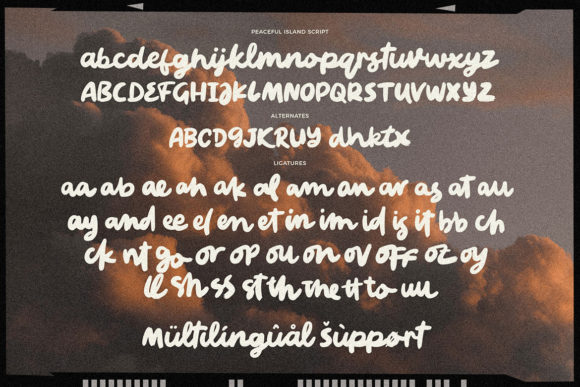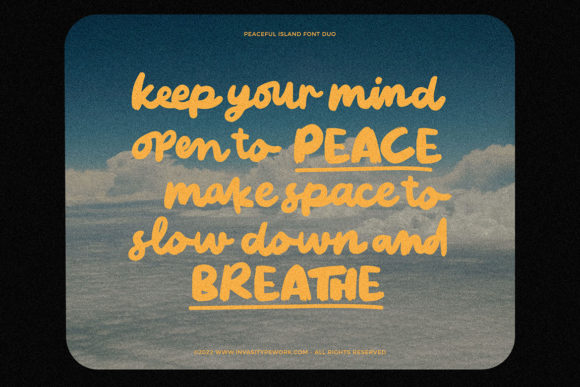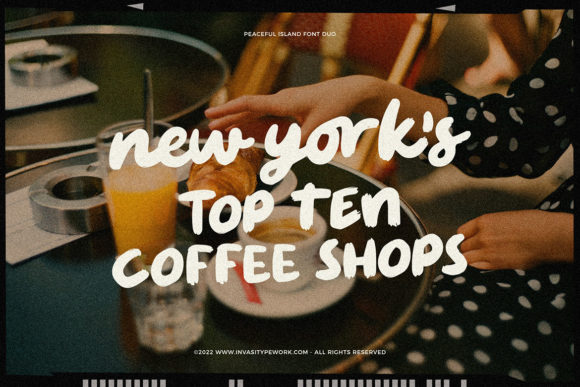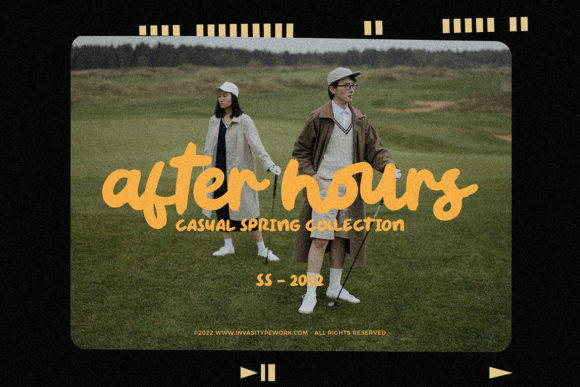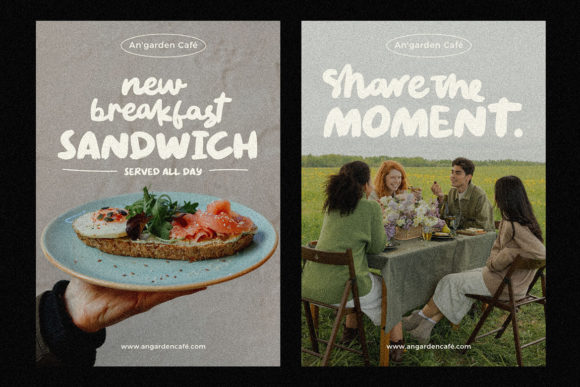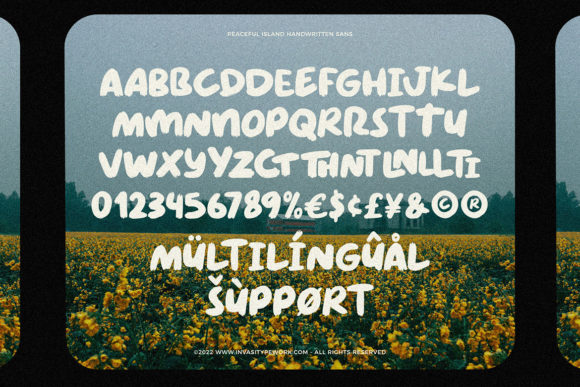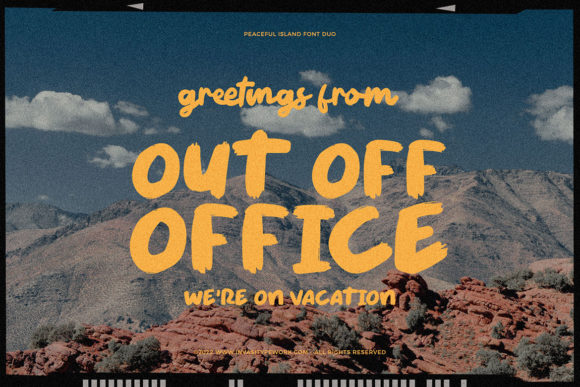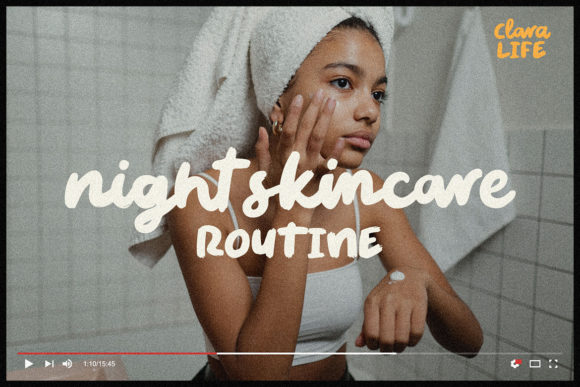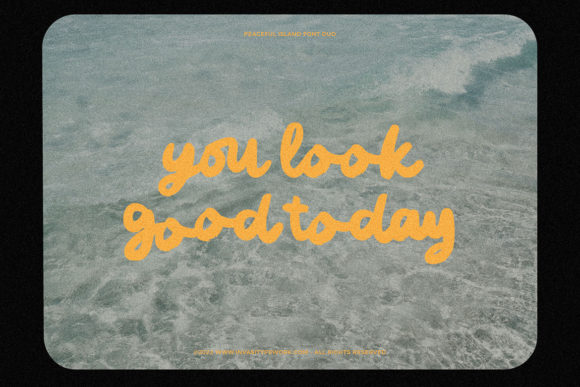
Peaceful Island Font
Peaceful Island emerges as a cool, neat, and brushed duo font, featuring both a script and a display style. With its lively characters, this font duo ensures that your next project becomes an eye-catching masterpiece. Notably, Peaceful Island is PUA encoded, granting easy access to a plethora of glyphs and swashes for seamless customization.
The combination of script and display styles in Peaceful Island provides a dynamic and versatile typographic solution for various design projects. The script font brings a brushed and handwritten vibe, exuding a cool and laid-back feel. The display font complements it with a neat and distinctive aesthetic, creating a harmonious duo that captures attention.
The lively characters of Peaceful Island add a dynamic quality, making it a standout choice for projects where vibrancy and energy are desired. Whether applied to branding, signage, or any design endeavor, this font duo enhances the visual appeal with its cool and eye-catching presence.
The PUA encoding feature enhances Peaceful Island’s user-friendly qualities, allowing designers to effortlessly access and incorporate a range of glyphs and swashes. This functionality ensures a smooth and personalized design experience, making customization easy and enjoyable.
Incorporating Peaceful Island into your design toolkit opens up exciting possibilities. Whether you’re working on branding projects, posters, or any creative venture that demands a cool and eye-catching typographic solution, this font duo is poised to elevate your designs with its dynamic and brushed appeal.
To sum up, Peaceful Island goes beyond being just a font; it’s a cool and lively design duo tailored for eye-catching projects. With its PUA encoding, lively characters, and versatile styles, Peaceful Island becomes a valuable asset for designers seeking to infuse energy and neatness into their creations.